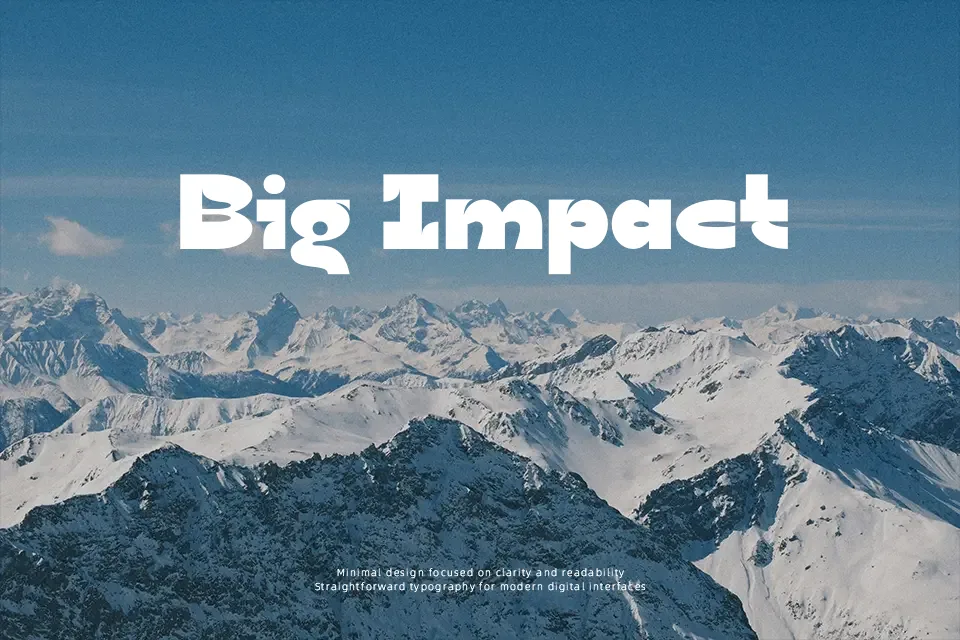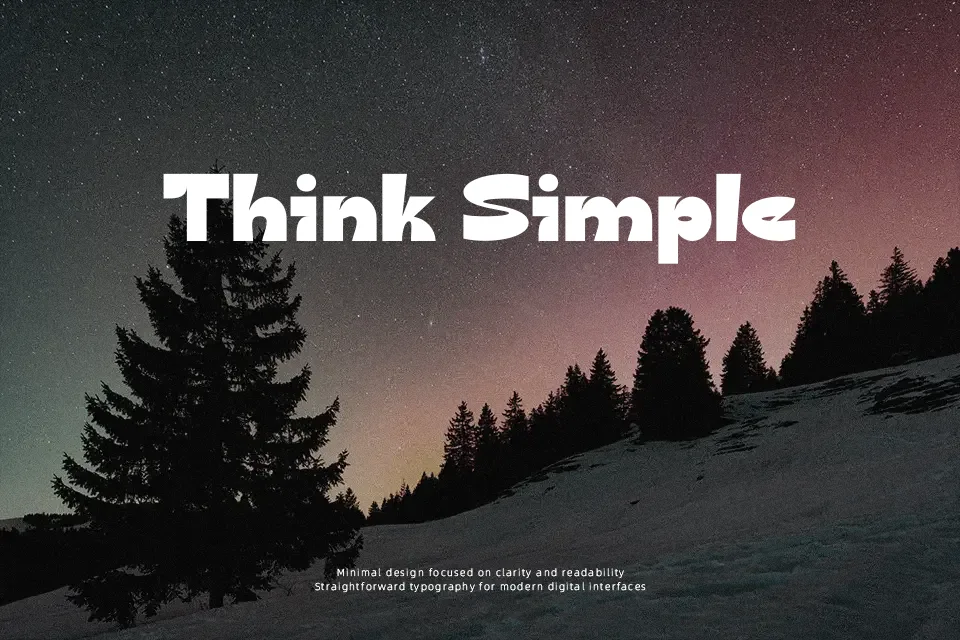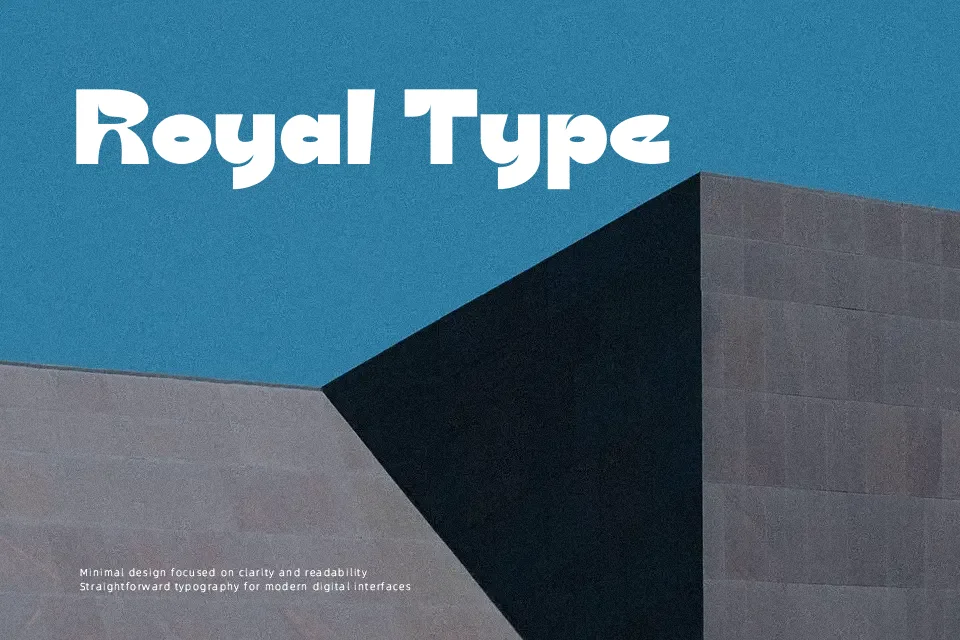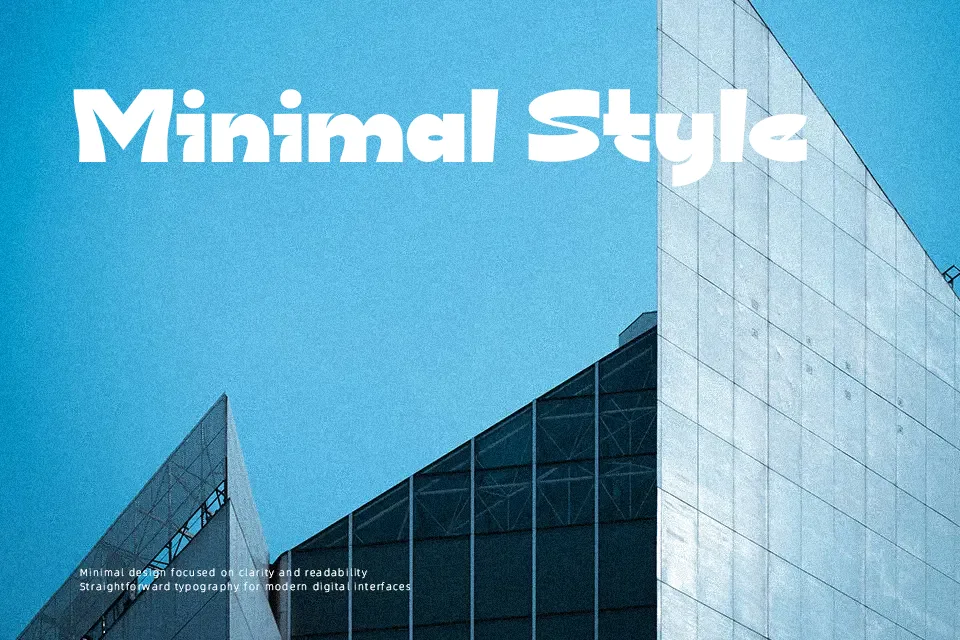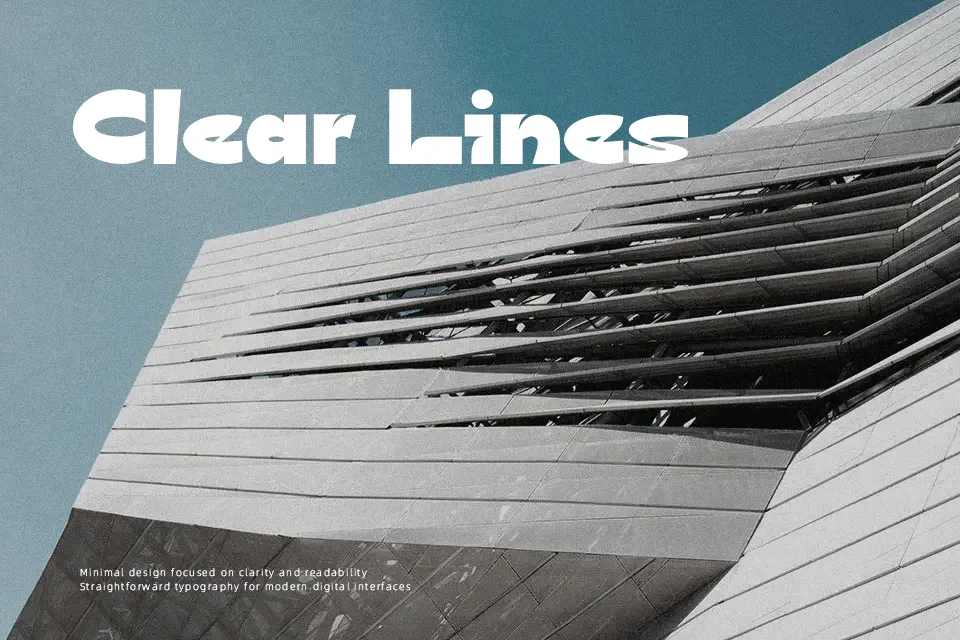
Bisten Font
Designed by Marvadesign
Bisten carries a distinctly retro-groovy character — letterforms are bold and decorative, with expressive curves and playful stroke variations that lean into personality rather than utility. The spacing is generous, and the overall weight gives it strong visual presence at large sizes. It works well on short-form display pieces: a festival poster, a music EP cover, a streetwear logo where the type needs to feel era-specific and confident. That said, it demands restraint in application — pair it with a clean neutral typeface or it quickly overwhelms a layout. Skip it entirely for body copy, formal business materials, or any context where readability under 24pt matters, because the decorative details break down and legibility suffers.
festival and event posters,music or streetwear branding,retro-themed headline type,short social media title cards
body copy or long-form text,formal or corporate materials,small-size UI labels,mixed script layouts
Perfect for branding, fashion, and headline, with a bold and decorative style.